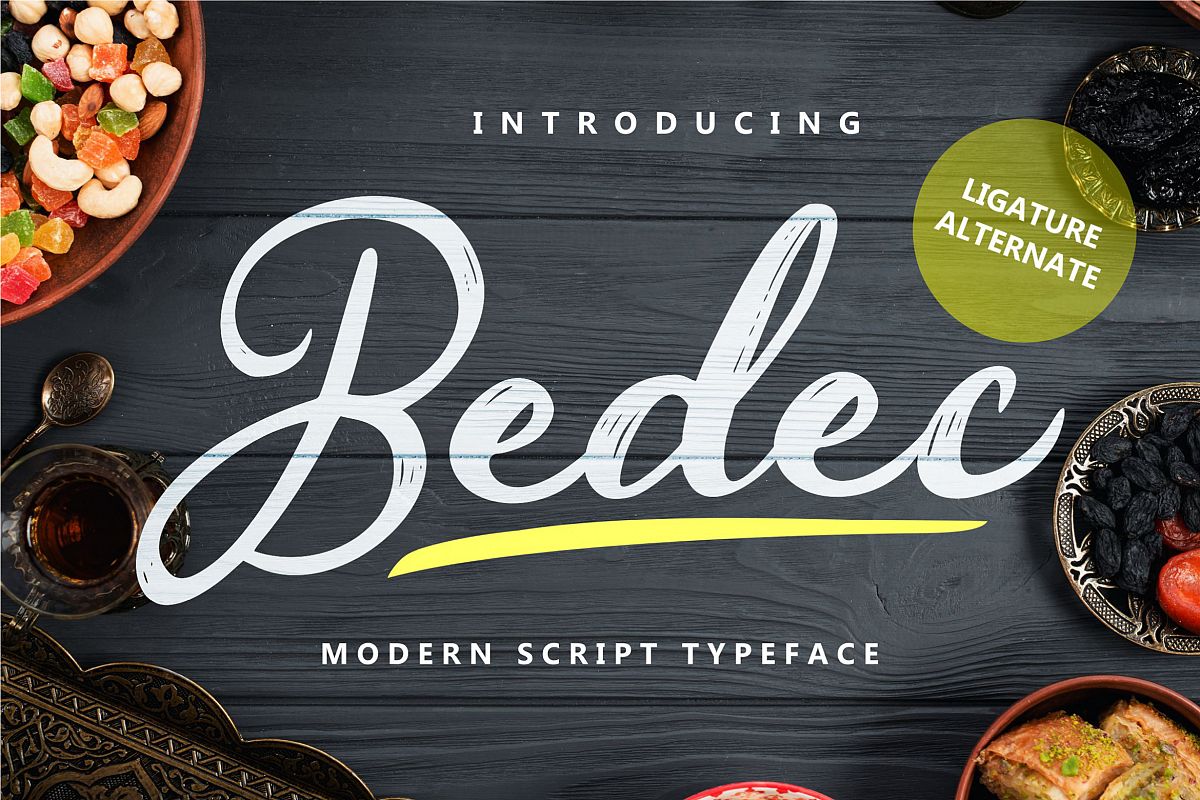
Bedec - Modern Script Typeface
Bedec
Bedec - Modern Script Typeface
So beautiful on invitation like greeting cards, branding materials, business cards, quotes, posters, and more!